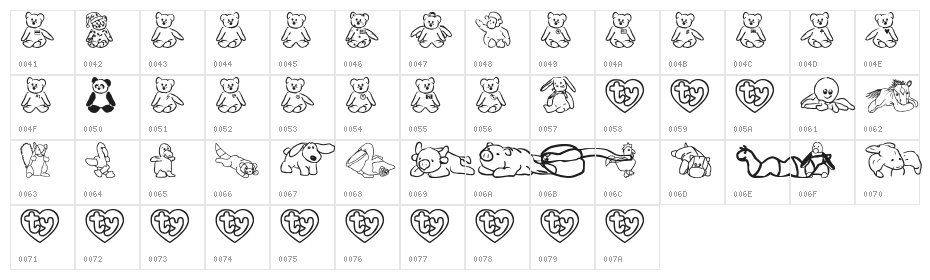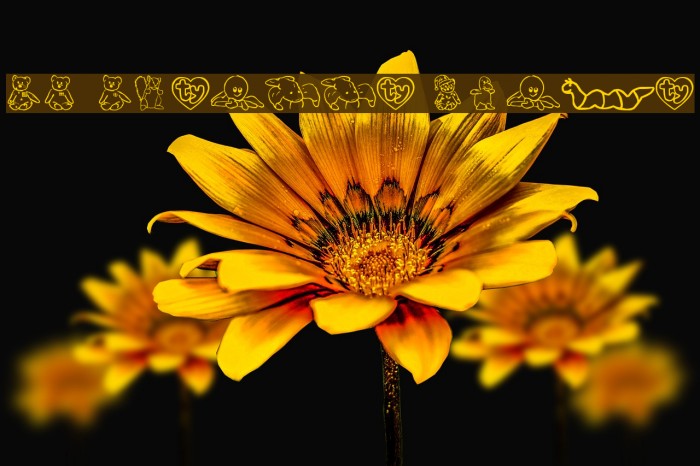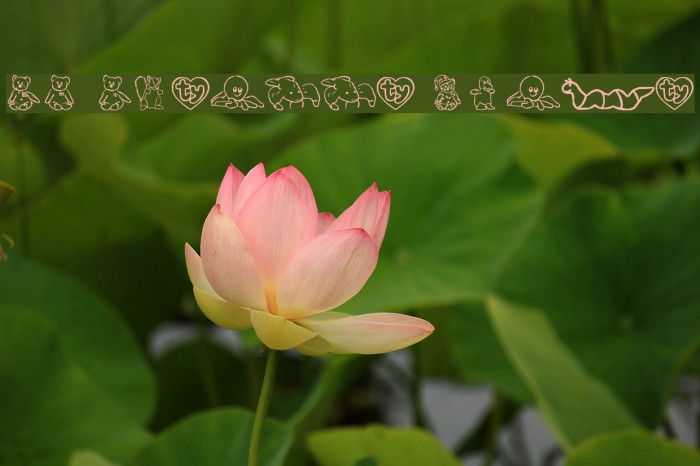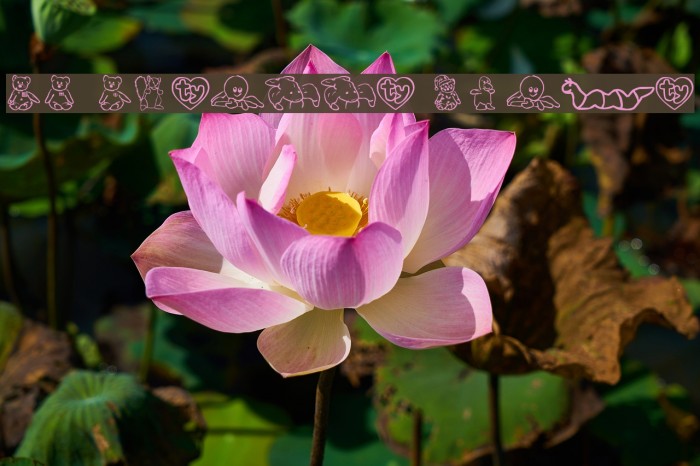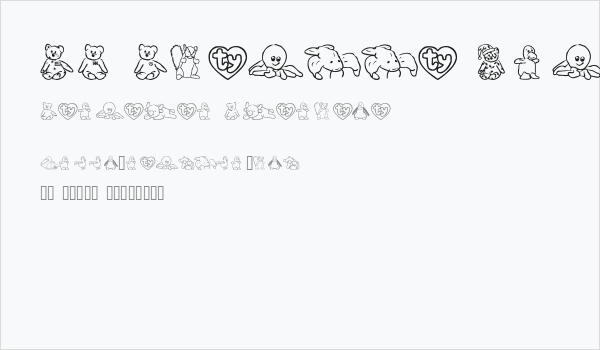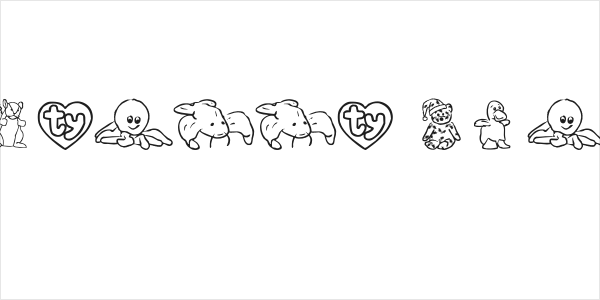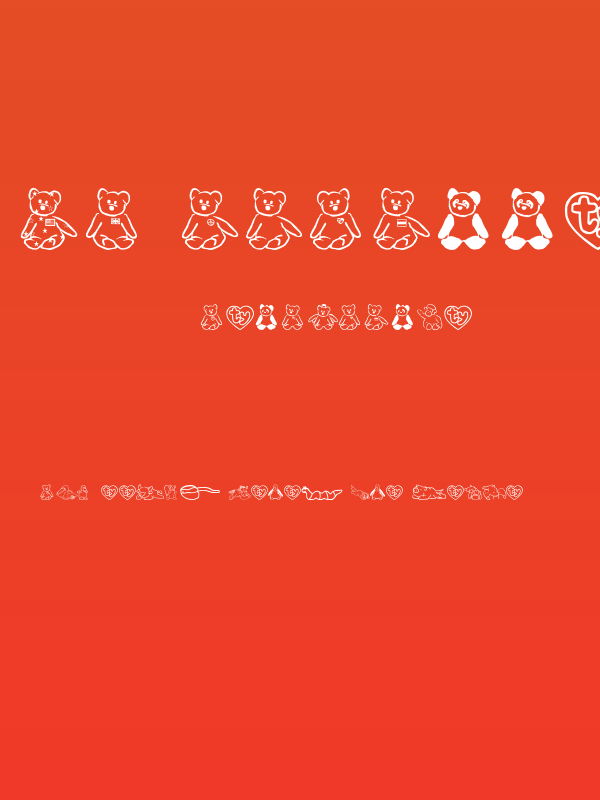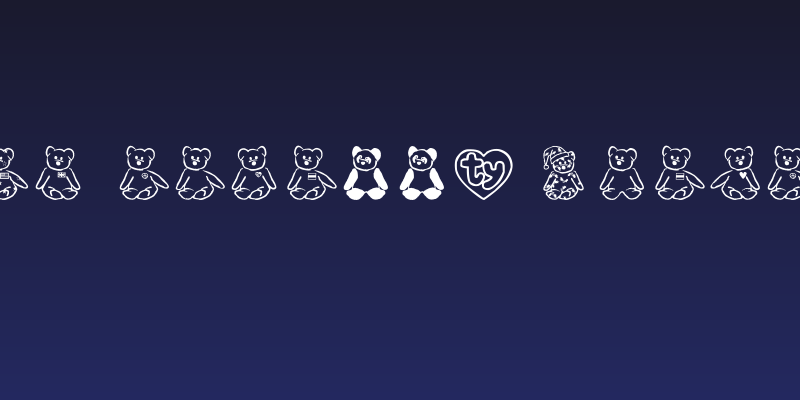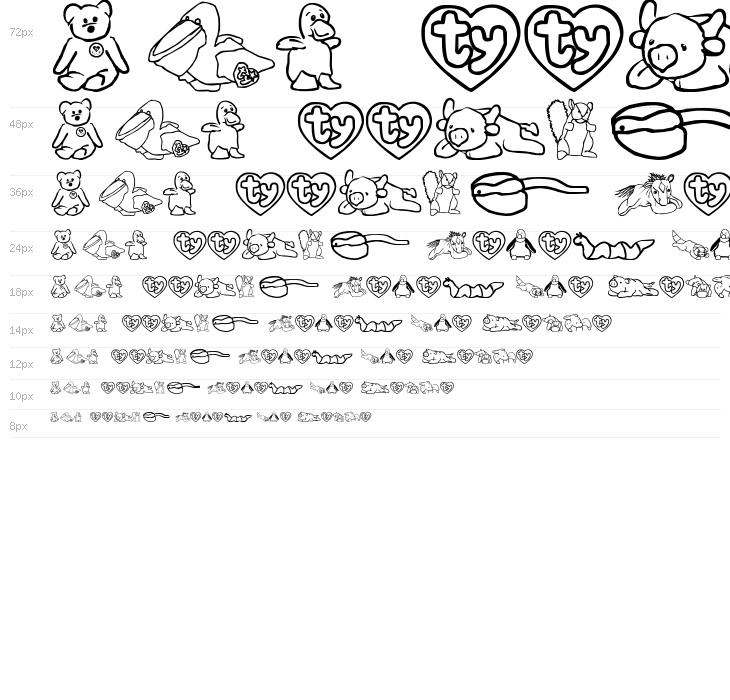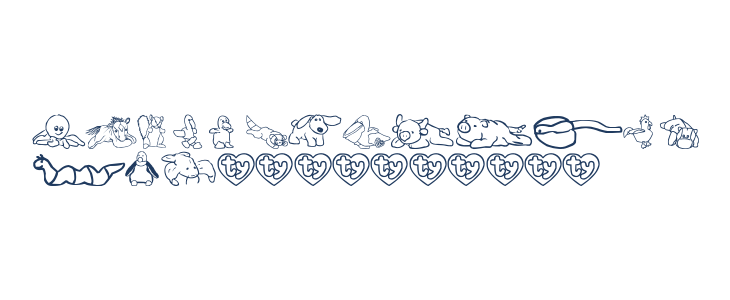
FL Scrappy Beans Font
FL Scrappy Beans Description
A playful, illustrative dingbat font featuring hand-drawn outlines of teddy bears, animals, and heart-shaped logos, reminiscent of collectible plush toys. Each character is represented by a unique, whimsical drawing rather than traditional letterforms.
| Overall Style | Playful, Whimsical, Decorative |
| Use Case | Decorative elements, Themed graphics, Logos for childrenΓ’β¬β’s products |
| Proposed Projects | ChildrenΓ’β¬β’s party invitations, toy store branding, scrapbooking, playful posters, themed event materials. |